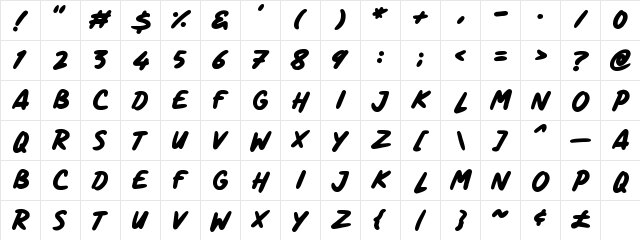
Comic Panels Regular
Design Context for Comic Panels Typeface
Comic Panels has an approachable, lighthearted character — its loose, expressive forms are well-suited to children's content, casual branding, and fun-first design.
Font Pairing: Pairs well with a rounded or humanist sans for body copy, maintaining the friendly tone without relying on Comic Panels to carry extended reading.
Pro Tip: Avoid using Comic Panels for long passages of text — it works best for headlines, labels, and short calls to action.